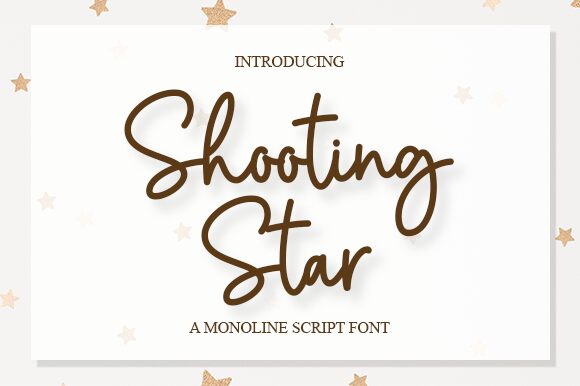
Shooting Star
Shooting Star is a captivating semi-light handwritten font designed by Graphix Line Studio. Its monoline style gives it a contemporary feel, while its unique character and fluid strokes lend it an organic, whimsical touch. With its playful and approachable vibe, Shooting Star is perfect for greeting cards, invitations and social media graphics. But don't let that restrict your creativity - this versatile font can also add a personal touch to branding materials, packaging designs and even website headers. Its handwritten charm will surely make your project shine like the Shooting Stars in the sky!